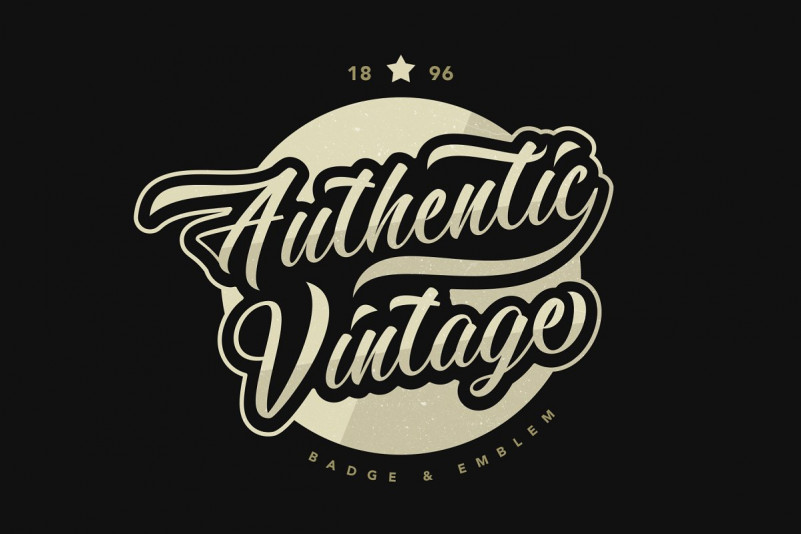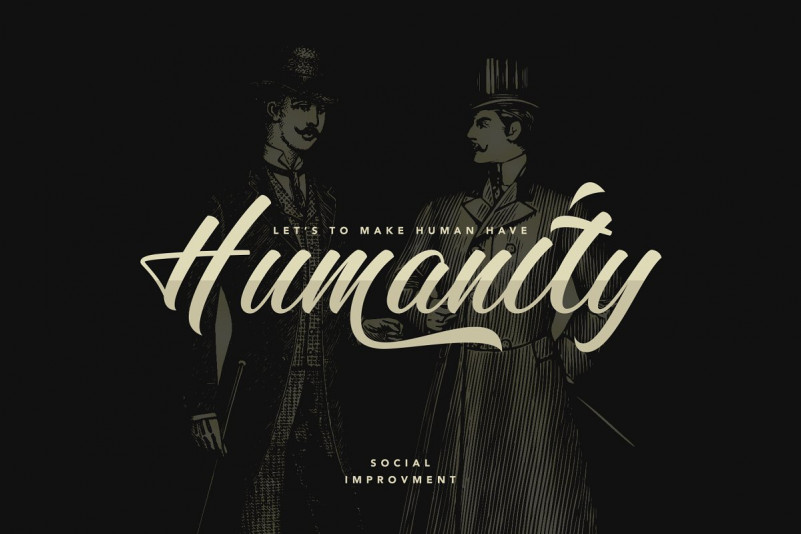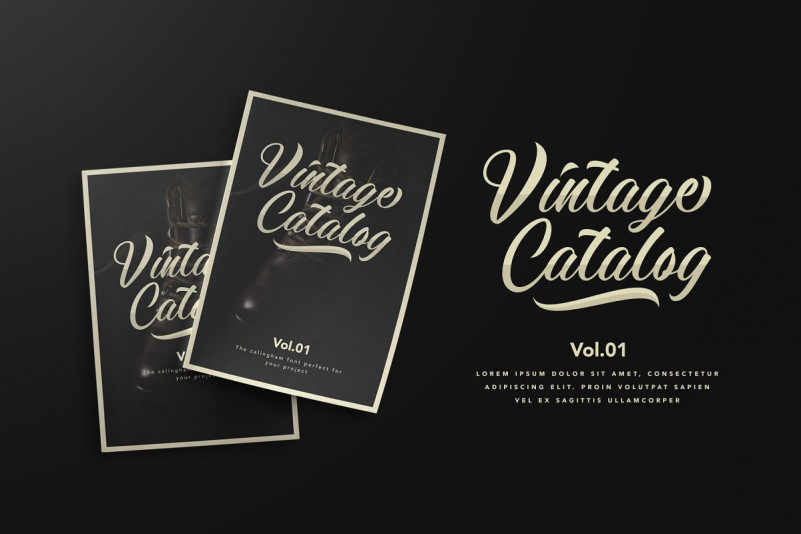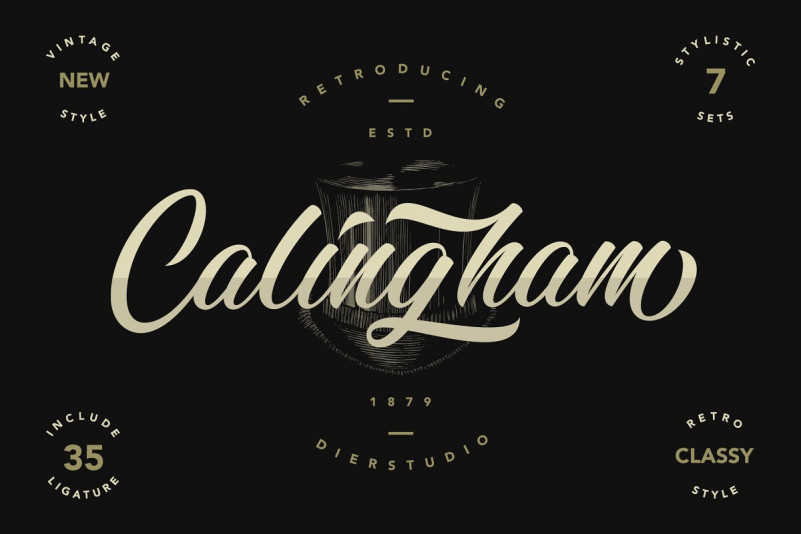
Calingham Calligraphy Font
Calingham Calligraphy Demo Font
Hello.. Welcome again! Introducing Calingham Font! This is a stylish feminine font. It includes amazing swashes which will add a feminine touch to your designs. It is designed and shared by Dierstudio. Retroducing Calingham is a brush type with a which gives a vintage and retro style but still with elegant and classy touch to your projects. Calingham is to use for any kind of design such as branding projects, logos, social media posts, advertisements, product packaging, product designs, labels, poster, photography, t-shirt, watermarks, stationery, and any projects.